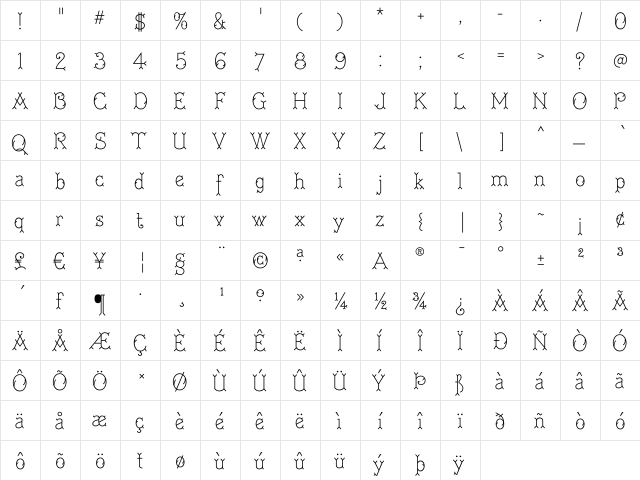
AstoriaAntiqueSG TT Light Regular
Design Context for AstoriaAntiqueSG TT Light Typeface
AstoriaAntiqueSG TT Light has the warm character of retro typography — evoking diners, record sleeves, and the golden age of print advertising. Its slender proportions lend an understated elegance to any composition.
Font Pairing: Combine AstoriaAntiqueSG TT Light with a simple slab or neutral sans — period-accurate companions reinforce the vintage feel without competing for attention.
Pro Tip: Lean into AstoriaAntiqueSG TT Light's period character by pairing it with aged paper textures, muted colour palettes, and vintage illustration styles.